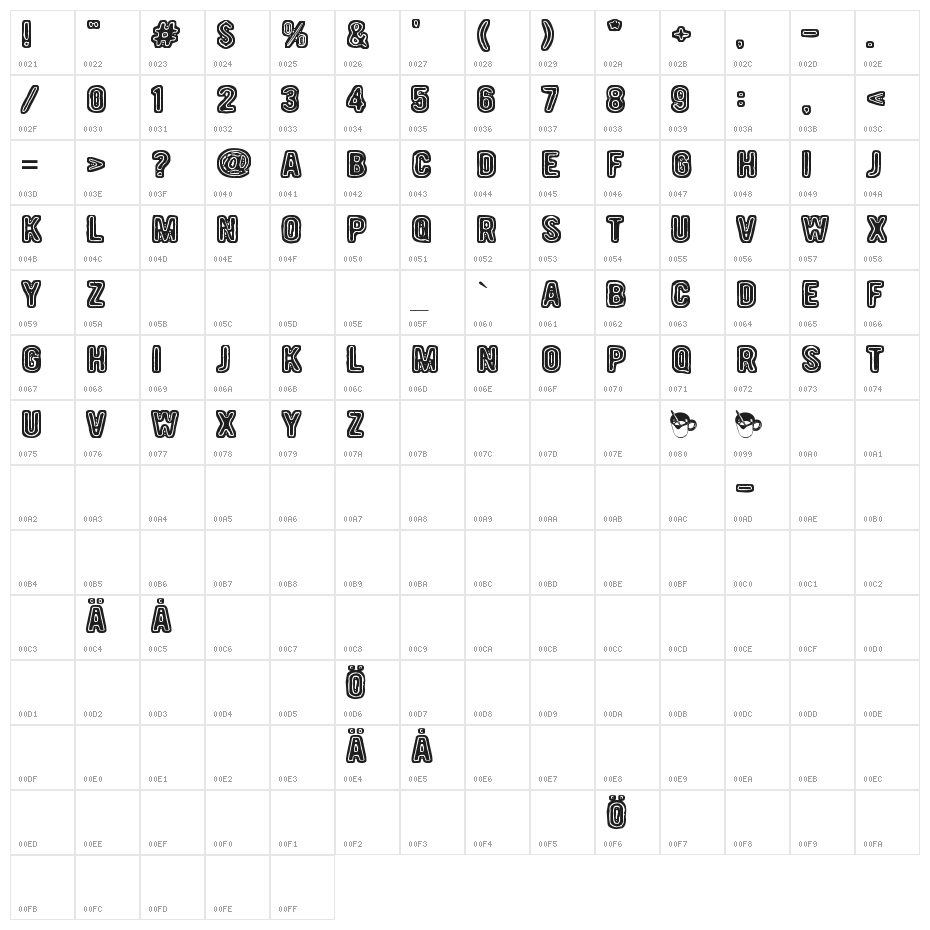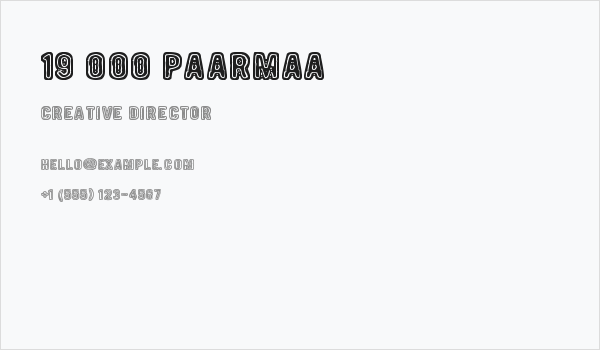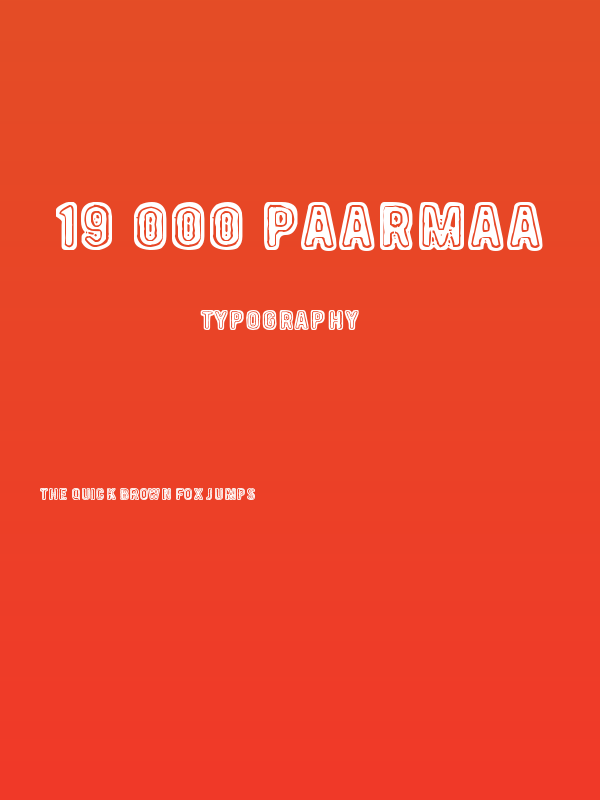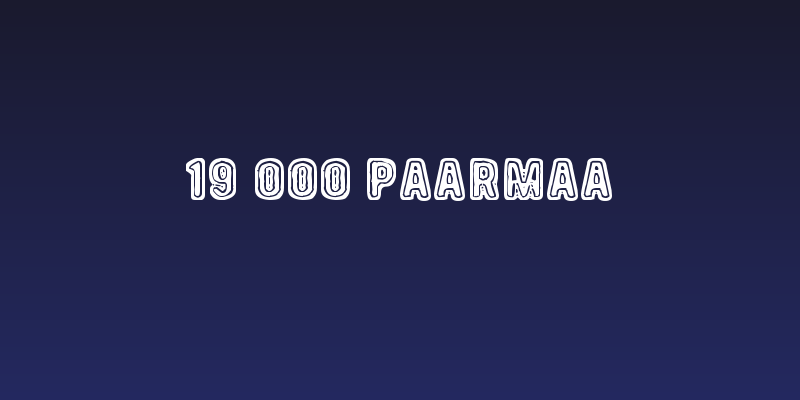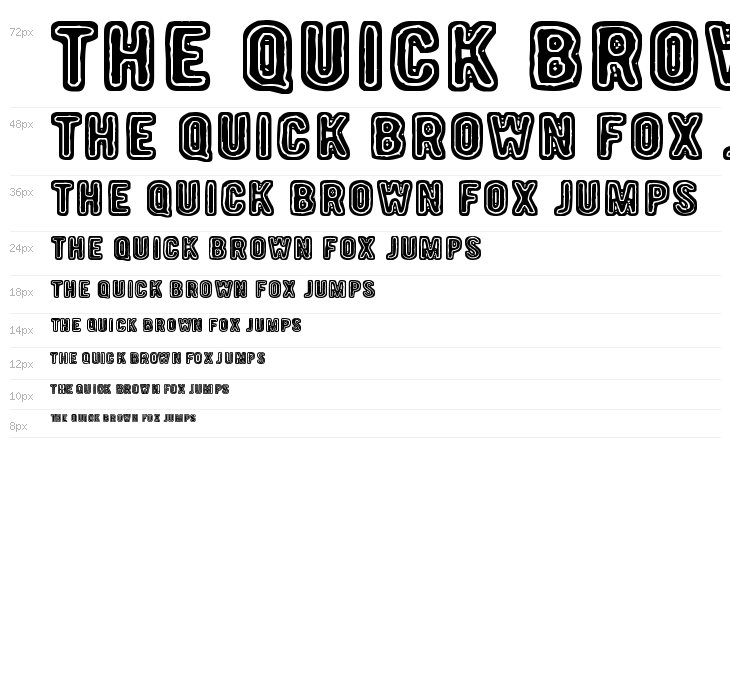
19 000 paarmaa Font
19 000 paarmaa Description
This font features a bold, playful style with a double-outline effect that gives it a unique, eye-catching appearance. The characters are uppercase and lowercase letters, numbers, and a variety of special symbols. Each letter is designed with a thick outer border and a thinner inner line, creating a layered look that adds depth and dimension. The font's whimsical and decorative nature makes it ideal for projects that require a fun and engaging aesthetic. The overall design is consistent across all characters, maintaining a uniform look that is both modern and slightly retro.
| Overall Style | Playful, Modern, Retro |
| Proposed Projects | Ideal for children's book covers, playful branding, posters, and event invitations. |